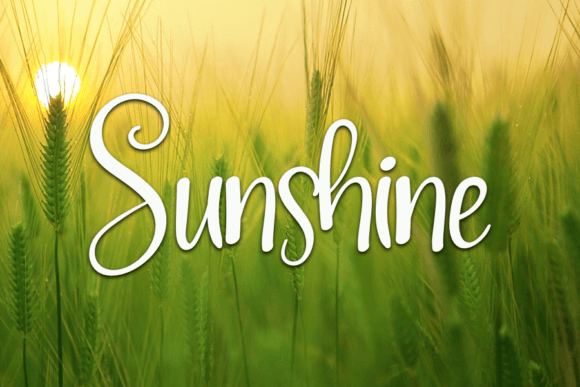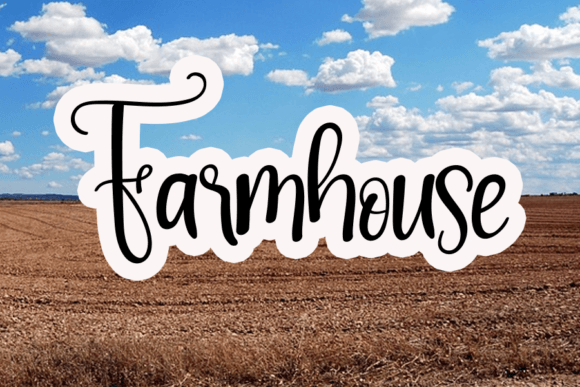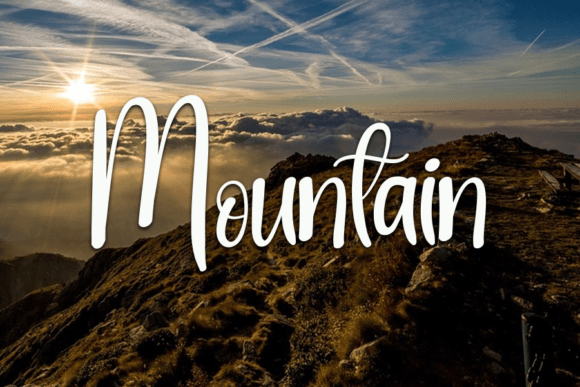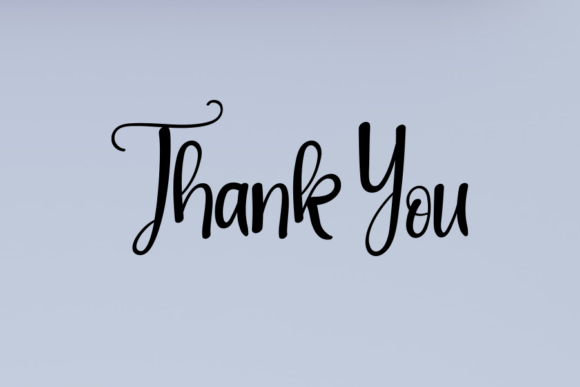
Bakery Font
About Bakery Font
Bakery Font is a warm, approachable handwritten typeface that brings a gentle charm to any design project. With its casual yet tidy strokes, this font captures the feel of a personal note or a cozy bakery chalkboard menu. Whether you’re a designer, crafter, or simply someone who loves a friendly look, Bakery Font is a fantastic addition to your creative toolbox.
Its simplicity and smooth letterforms make it an ideal choice for a wide range of design applications, from branding and product packaging to personalized gifts and social media visuals. This versatile typeface blends readability with personality, allowing you to express warmth and creativity in your work.
Where to Use Bakery Font
Bakery Font adapts well to both print and digital formats. Here are some of its ideal use cases:
• 🍪 Baking Labels & Menus – Perfect for small business branding, especially in bakeries or cafés
• 🎨 Craft Projects – Use it in Cricut or Silhouette cutting machines for vinyl, paper, or custom mugs
• 💌 Greeting Cards & Invitations – Add a soft, friendly tone to thank you cards, wedding invites, or holiday notes
• 🖥 Social Media & Web Graphics – Make your quotes, announcements, and banners more inviting
• 📦 Packaging & Tags – Great for handmade products or boutique gift items
• ✍️ Casual Handwritten Style – Friendly curves with a hand-crafted finish
• 🌐 Multilingual Support – Includes international characters for broader reach
• 🧩 PUA Encoded – Access alternate glyphs and swashes easily
• 🔠 Clean & Readable – Designed to be legible at both small and large sizes
Whether you’re creating charming chalkboard-style signage, heartfelt gifts, or inviting product labels, Bakery Font delivers an authentic, approachable look. Its cheerful appearance and ease of use make it an excellent go-to for hobbyists and professionals alike.